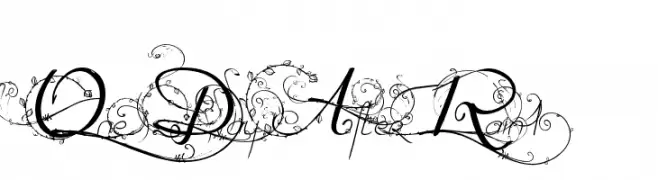
An ornate and decorative script font with elaborate swirls and flourishes.
An ornate and decorative font with intricate swirls and elegant strokes.
A bold, futuristic italic font with a dynamic gradient effect and striped pattern.
A bold, italic font with a dynamic, outlined style and geometric shapes.
A bold, italicized font with a halftone pattern, exuding a futuristic and dynamic style.
A bold, italicized font with thick strokes and a dynamic presence.
A bold, italicized font with a futuristic halftone effect and dynamic style.
A bold, gradient-striped font with a modern and dynamic style.
A bold, 3D outline font with a futuristic and geometric style.
A bold, geometric font with strong, angular lines and a modern style.